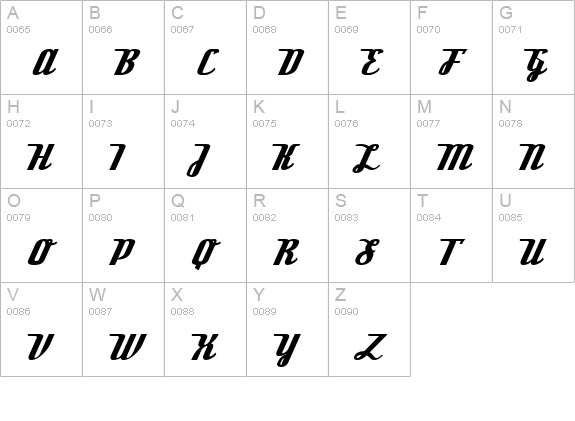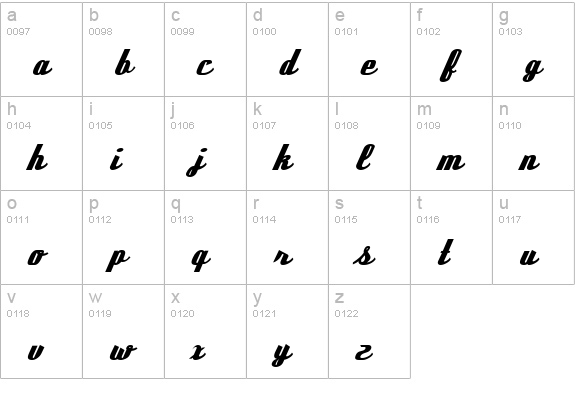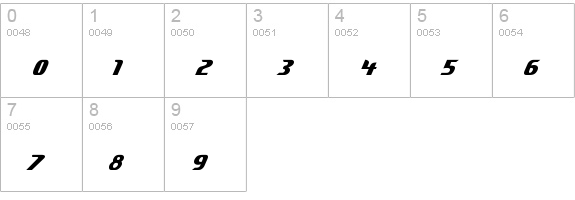
Deftone Stylus Font Details
Deftone Stylus font is a modern and sophisticated typeface that strikes the perfect balance between elegance and edginess. With its sleek lines and sharp angles, this font exudes a sense of refined creativity that is perfect for a wide range of design projects. Whether you are looking to add a touch of sophistication to your branding, create eye-catching headlines, or design striking logos, Deftone Stylus font is sure to make a lasting impression. What sets Deftone Stylus font apart is not only its unique design, but also the fact that it is available for free download at FontsMarket.com. This means that you can easily access this high-quality font without any cost, making it a valuable resource for designers, creatives, and anyone in need of a stylish typeface for their projects. Don't miss out on the opportunity to enhance your designs with the distinctive charm of Deftone Stylus font – download it for free today!